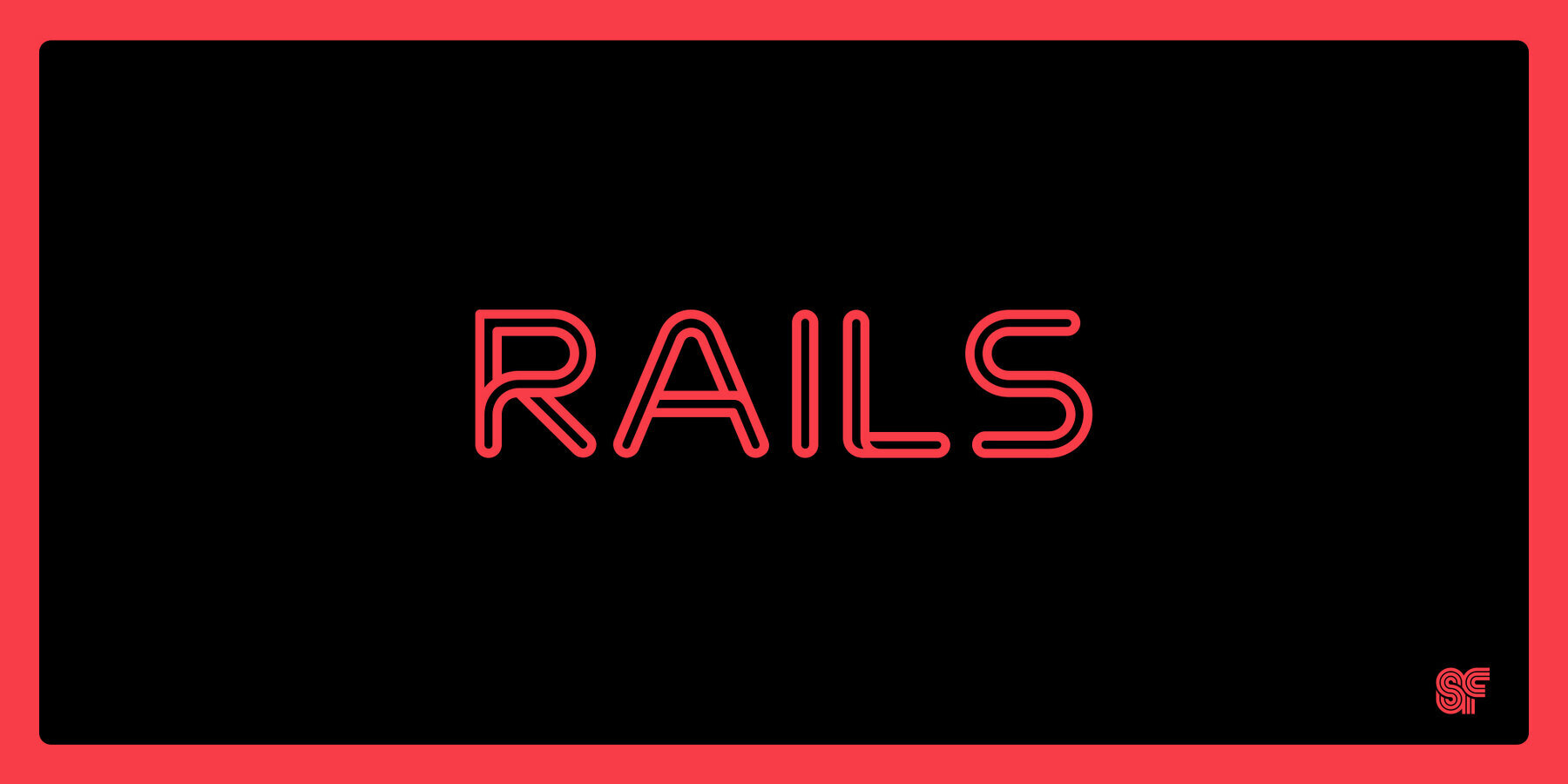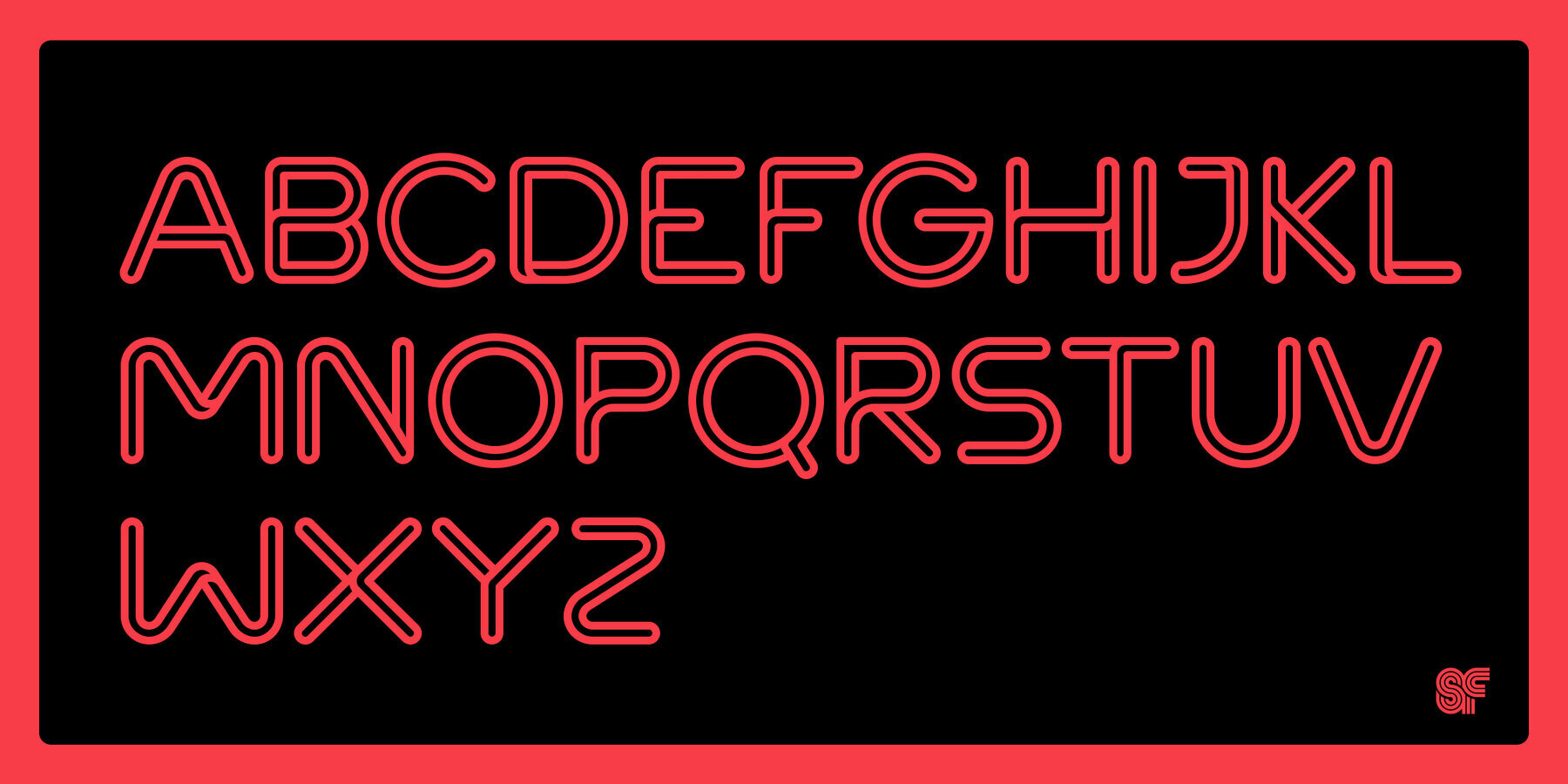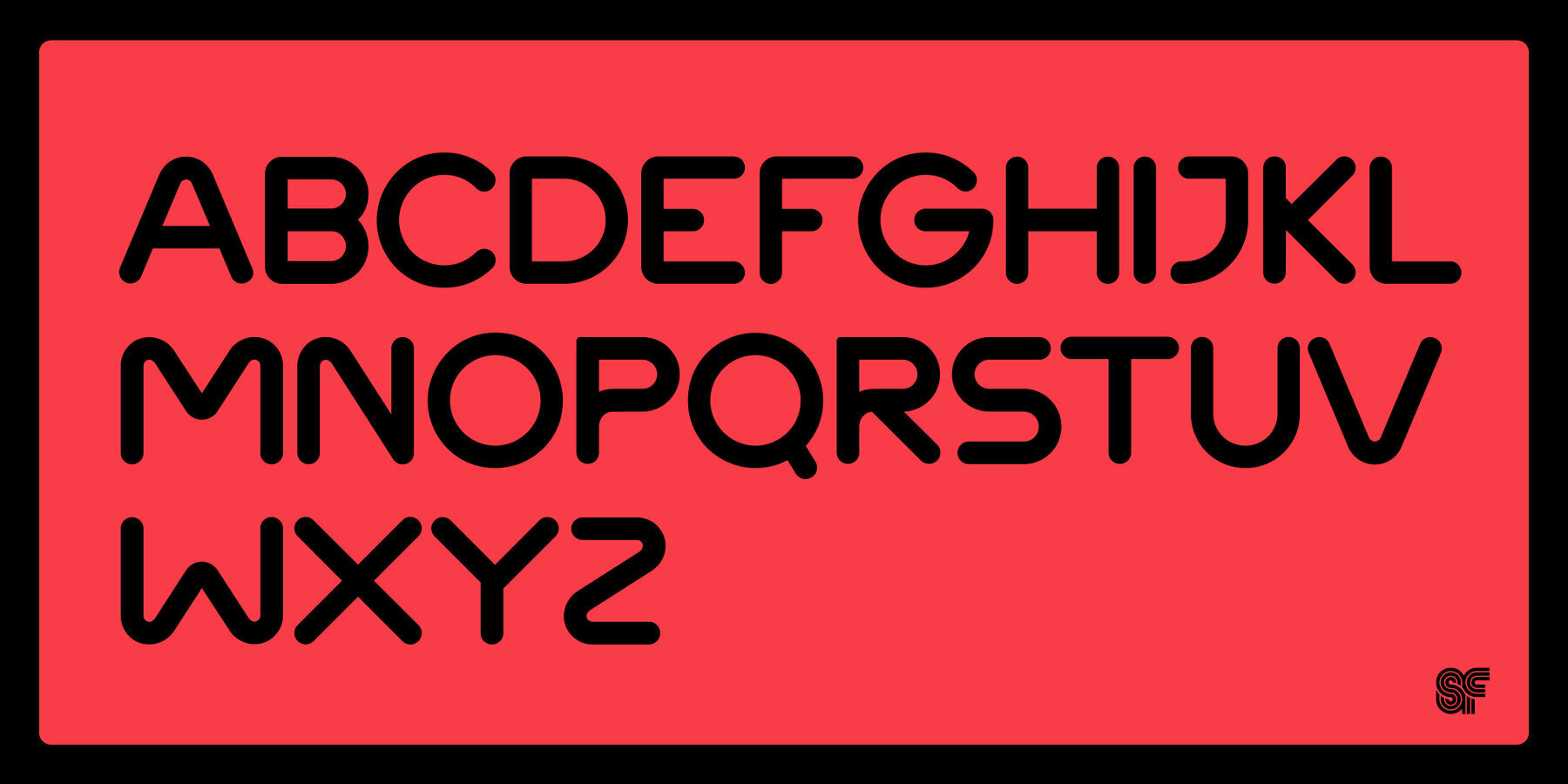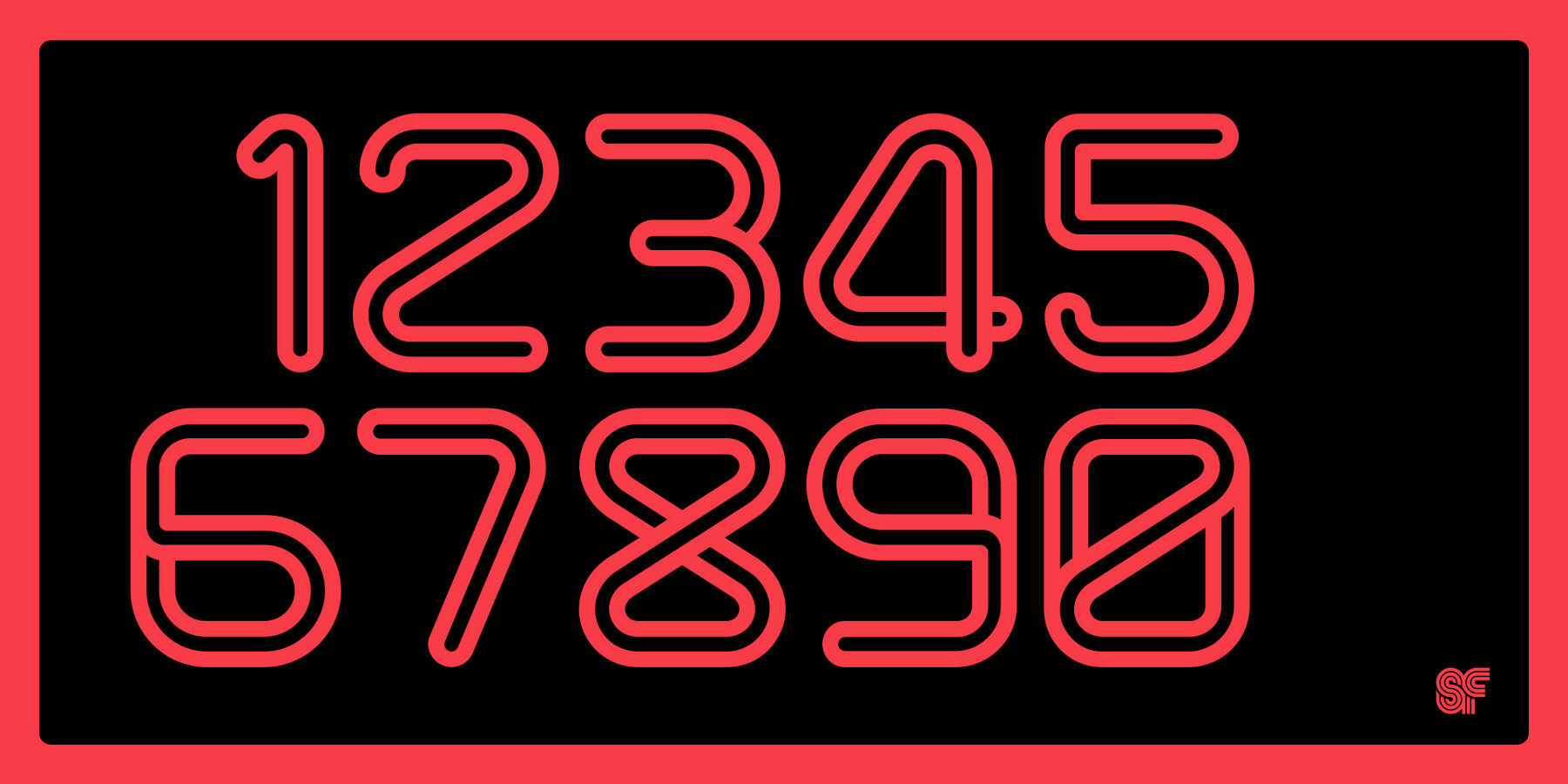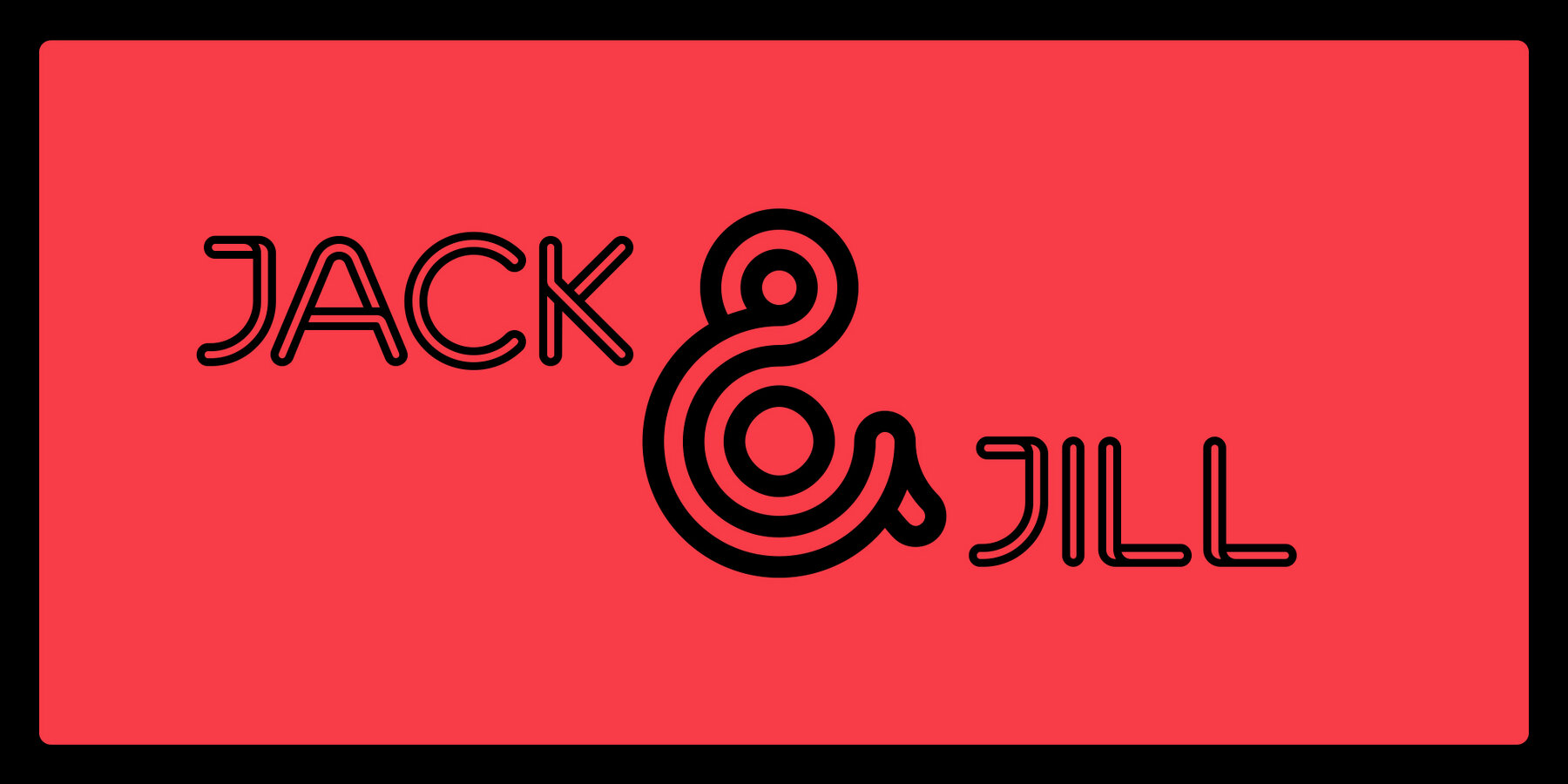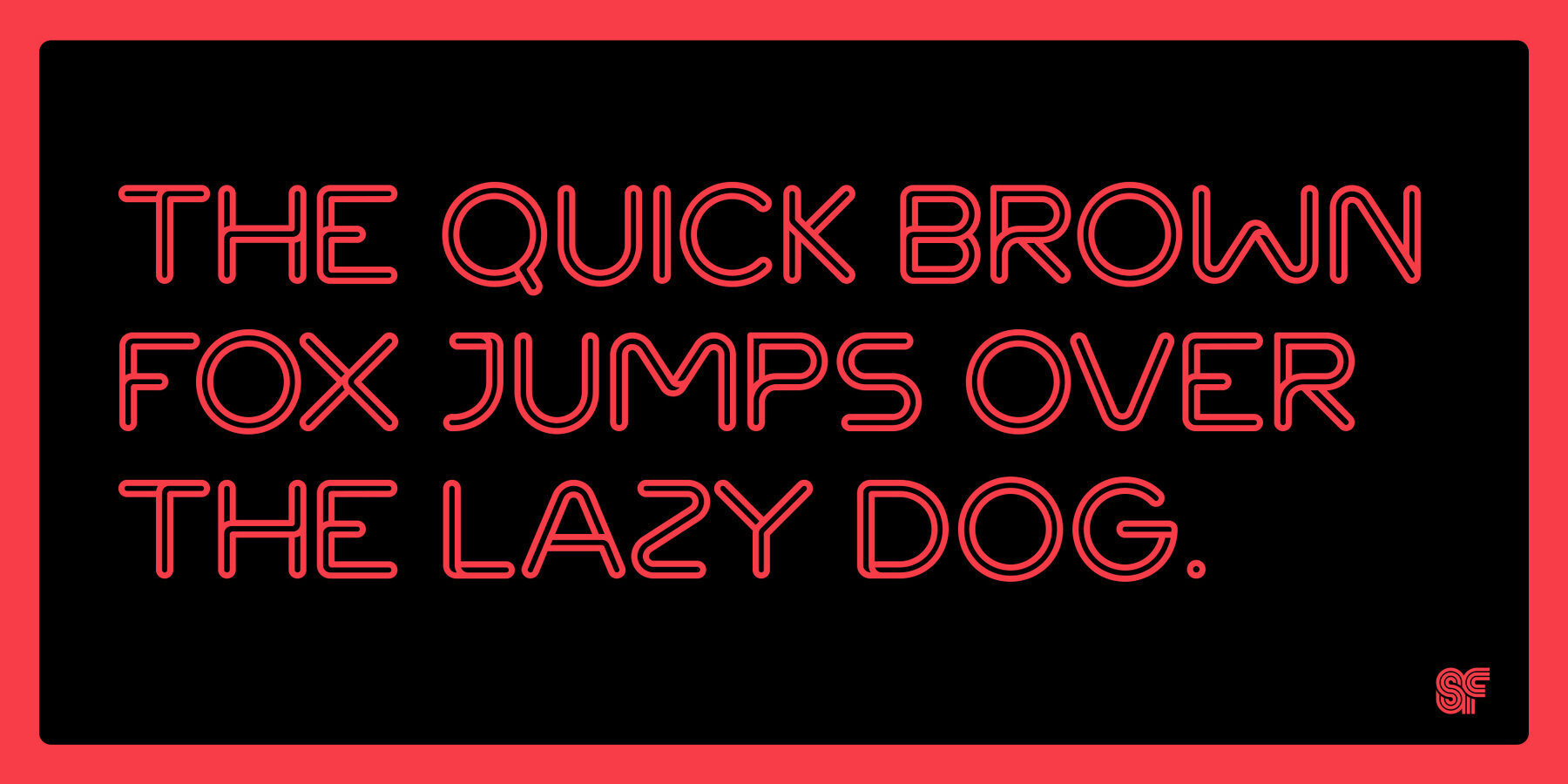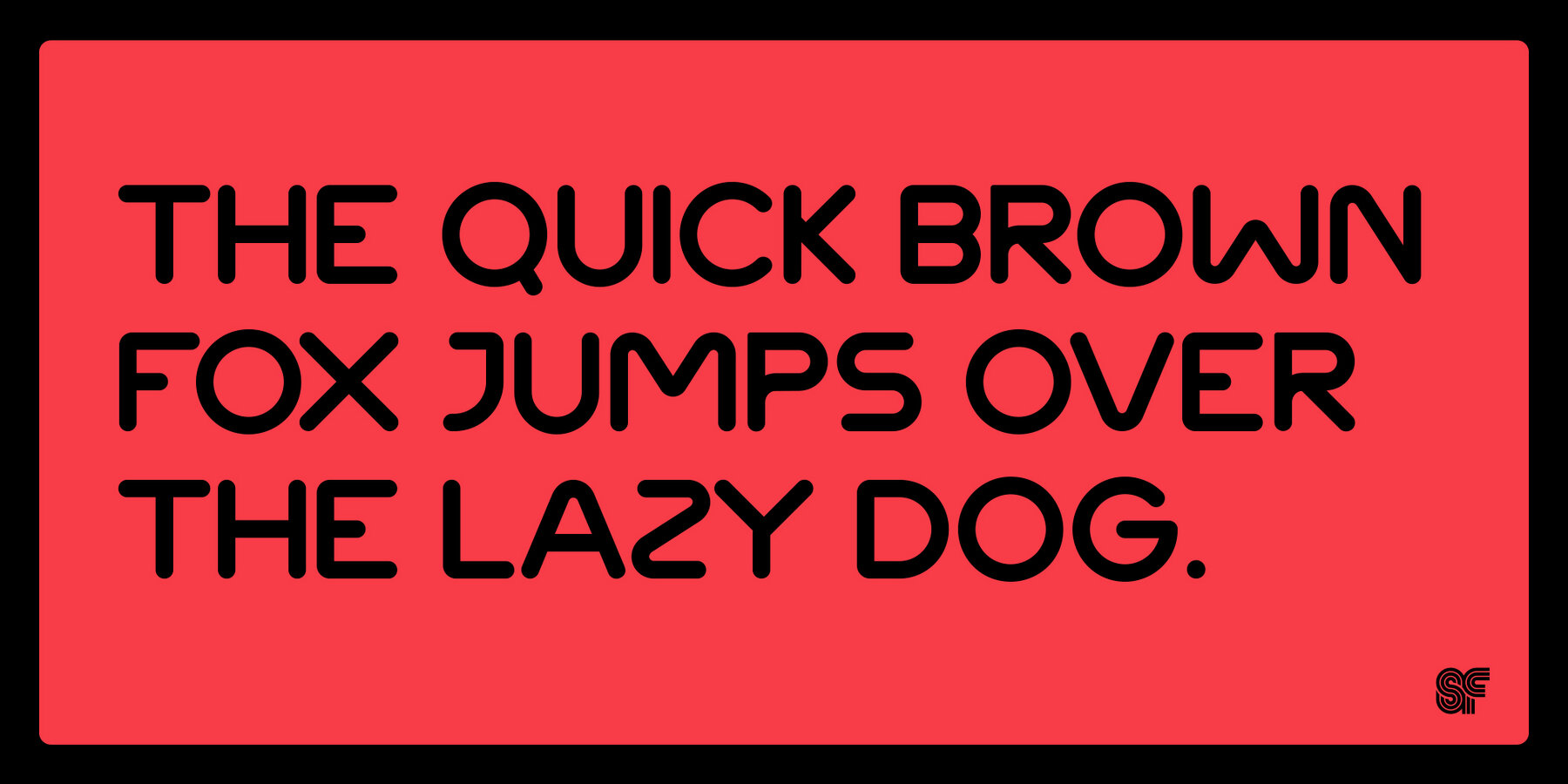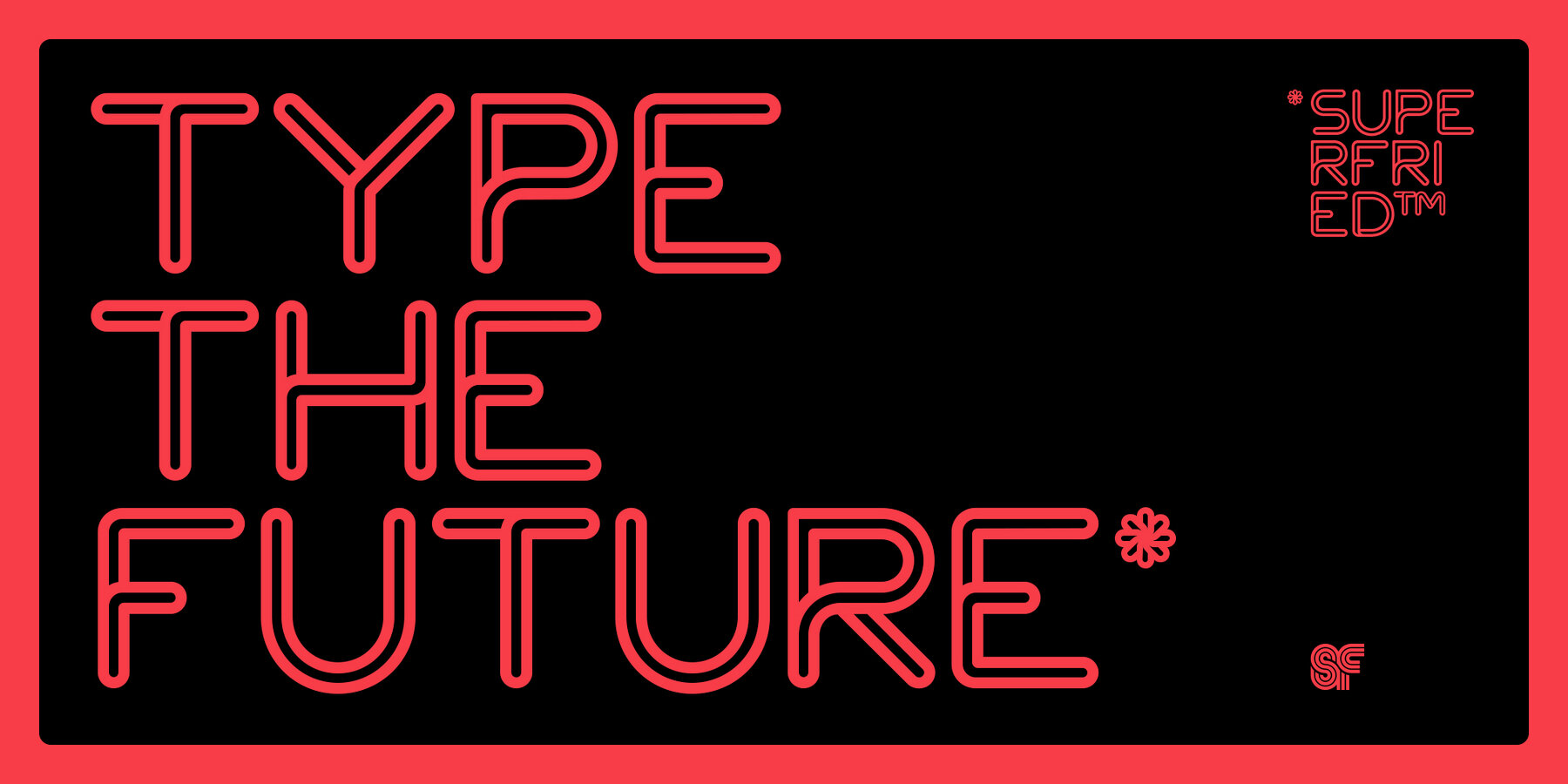
Rails Font
Rails Display
Rails Display Solid
Rails Broken
Rails Broken Solid
Rails is an experimental, retro, outline display typeface designed by Superfried. Rails is available in two styles display and broken. As the name suggests they are constructed from parallel tracks with the latter version featuring distinct breaks for added impact. Combination of the two results in clean, flowing type with sudden and unexpected moments of disruption.